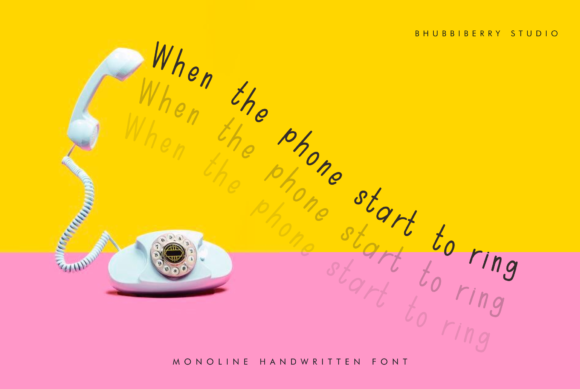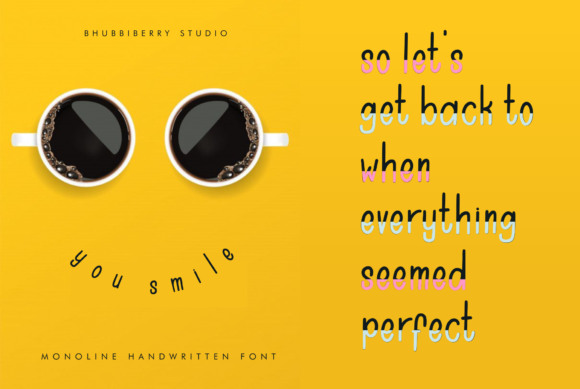
Little Parrot Font
db-ku.com - Script & Handwritten -- Little Parrot is a thin lettered and simple script font. It is ideal for quotes, social media designs, invitations, or just used to express words above the background.